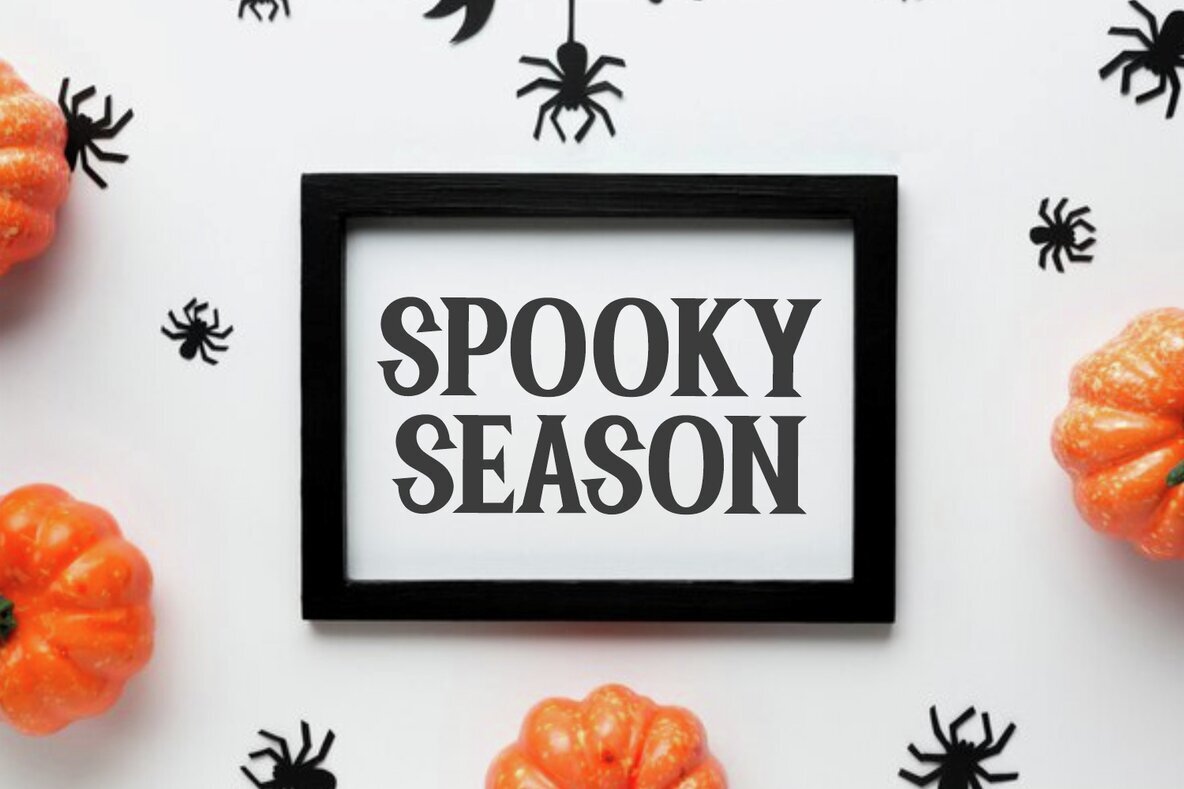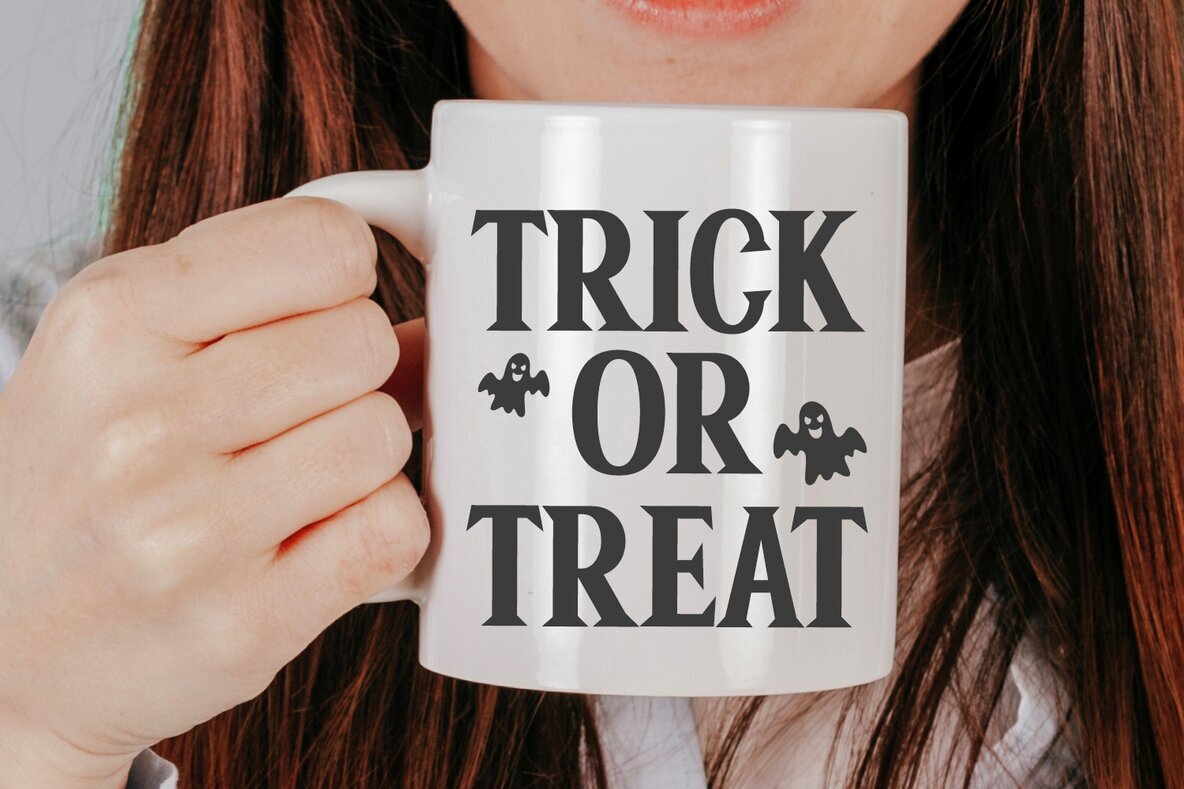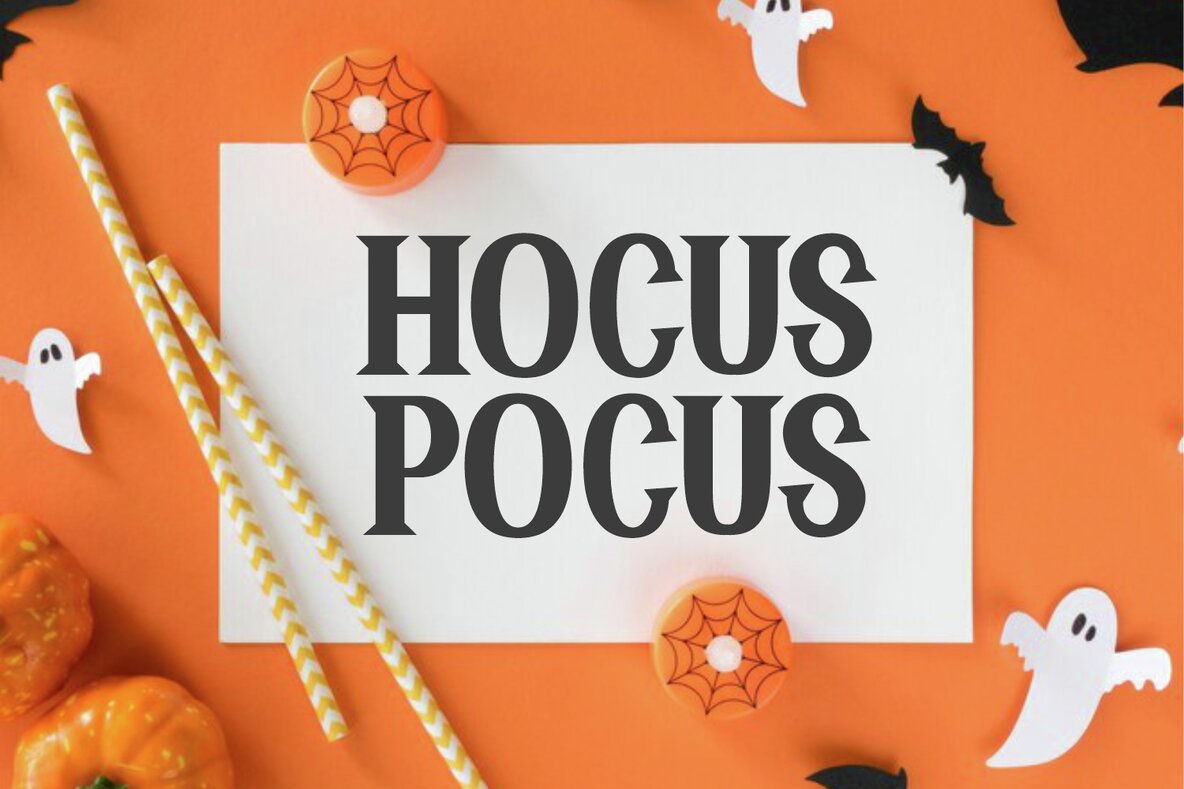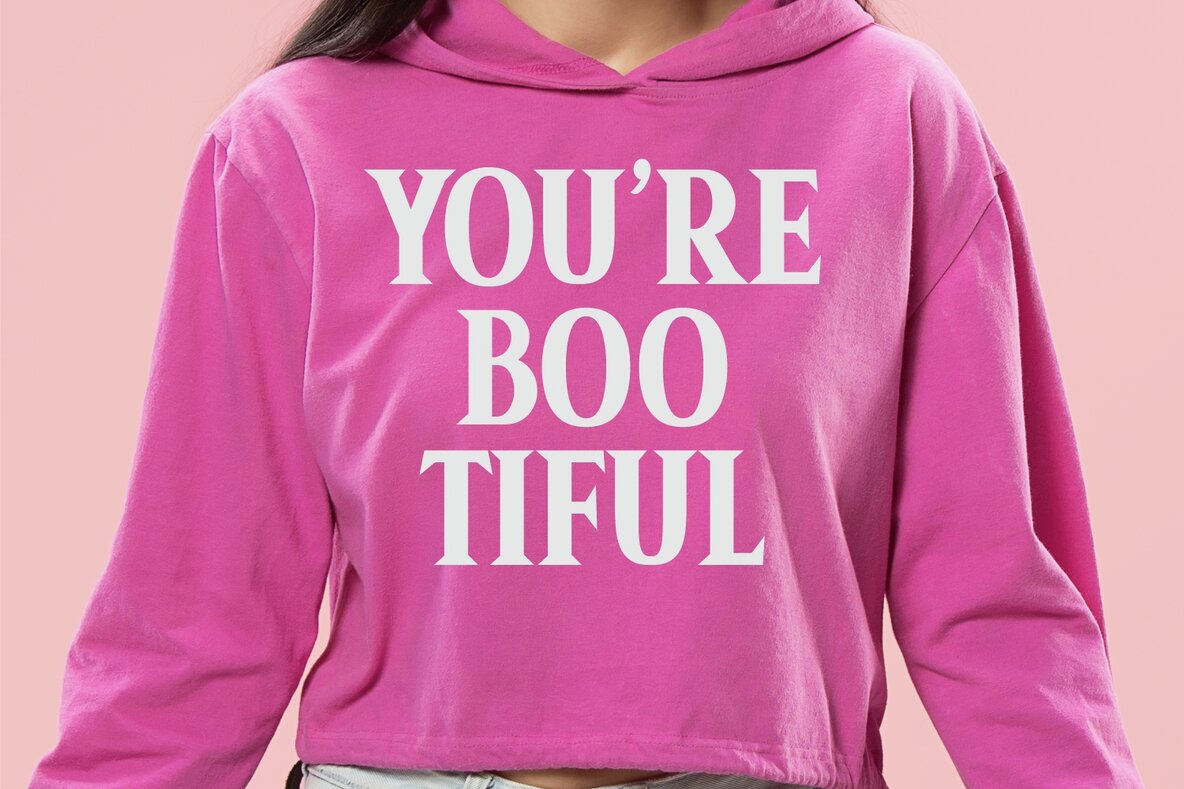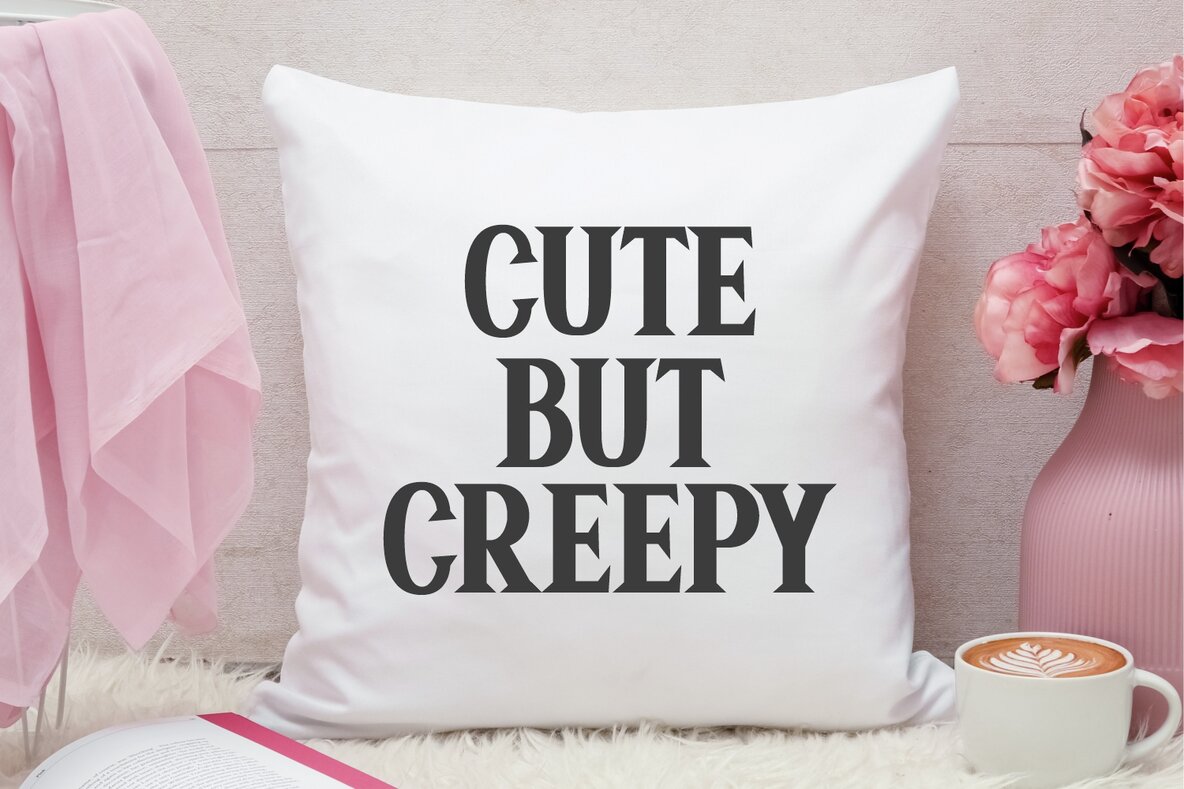
Spooky Mother Font
Spooky Mother
Immerse yourself in the haunting allure of 'Spooky Mother,' a sleek serif typeface with a Halloween-inspired aesthetic. Its chilling yet charming visual appeal makes it perfect for a variety of printed mediums like t-shirts, hoodies, and posters. This typeface adds a unique touch to Halloween crafts, captivating party invitations, and stirring greeting cards.
'Spooky Mother' is also ideal for banners and social media posts, infusing them with spooky yet stylish vibes. Experience the perfect blend of creepiness and sophistication in every stroke, making your designs stand out with an eerie elegance that captures the essence of Halloween.